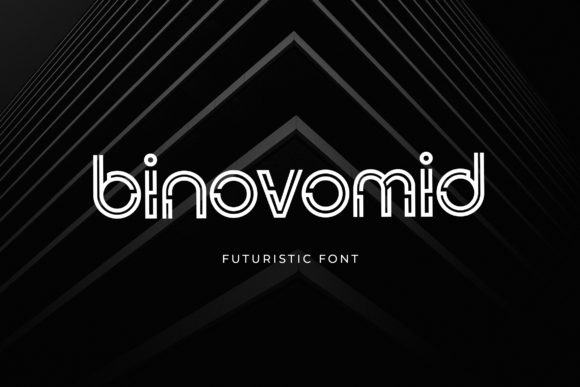
An Honest Review of Binovomid Font
- ✨ Simple yet strong visual effect: Binovomid Font has a way of making my designs stand out without overwhelming them.
- ✅ Highly versatile: This font works well for a variety of projects, from branding and advertising to packaging and web design.
- 🔥 Perfect for headlines and titles: Binovomid Font adds a touch of sophistication and elegance to any headline or title.
While Binovomid Font is an excellent choice for many projects, there are a few things to keep in mind. 🤔 For example, it may not be the best choice for body text or long paragraphs, as it can be a bit too bold and attention-grabbing. ⚠️ Additionally, some users may find that the font is a bit too similar to other sans-serif fonts on the market.
The Designer Behind Binovomid Font
The story behind Binovomid Font is one of creativity and experimentation. According to its designer, Binovomid Font was inspired by the urban landscape and the need for a modern and versatile display font. The designer spent countless hours perfecting the font’s curves and lines, resulting in a font that’s both stylish and functional.
| What is Binovomid Font? | Binovomid Font is a modern and sleek display font that’s perfect for creating eye-catching headlines and titles. |